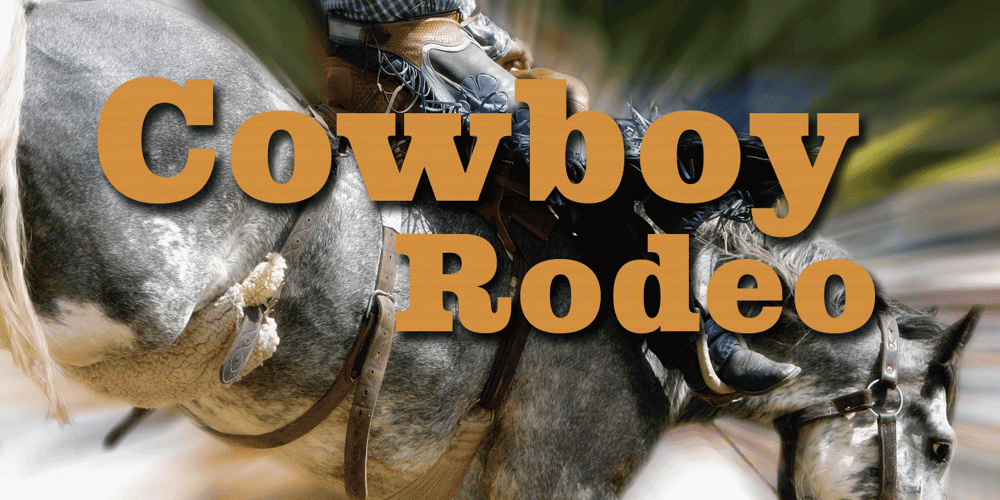
Cowboy Rodeo Font Family was designed by Michael Hagemann and published by FontMesa. Cowboy Rodeo contains 2 styles and family package options. Cowboy Rodeo is based on an old woodtype font from the late 1800’s Saddle up boys and girls the new Cowboy Rodeo is here, the perfect font for when you need to put a little giddy up in your chickabiddy. The fonts include alternate letters, additional language support for eastern, central and western European countries. The glyph set includes Latin extended A, B and Latin extended additional for Vietnamese plus Pinyin support for Chinese transliteration, finally we’ve finished the set with some discretionary ligatures.